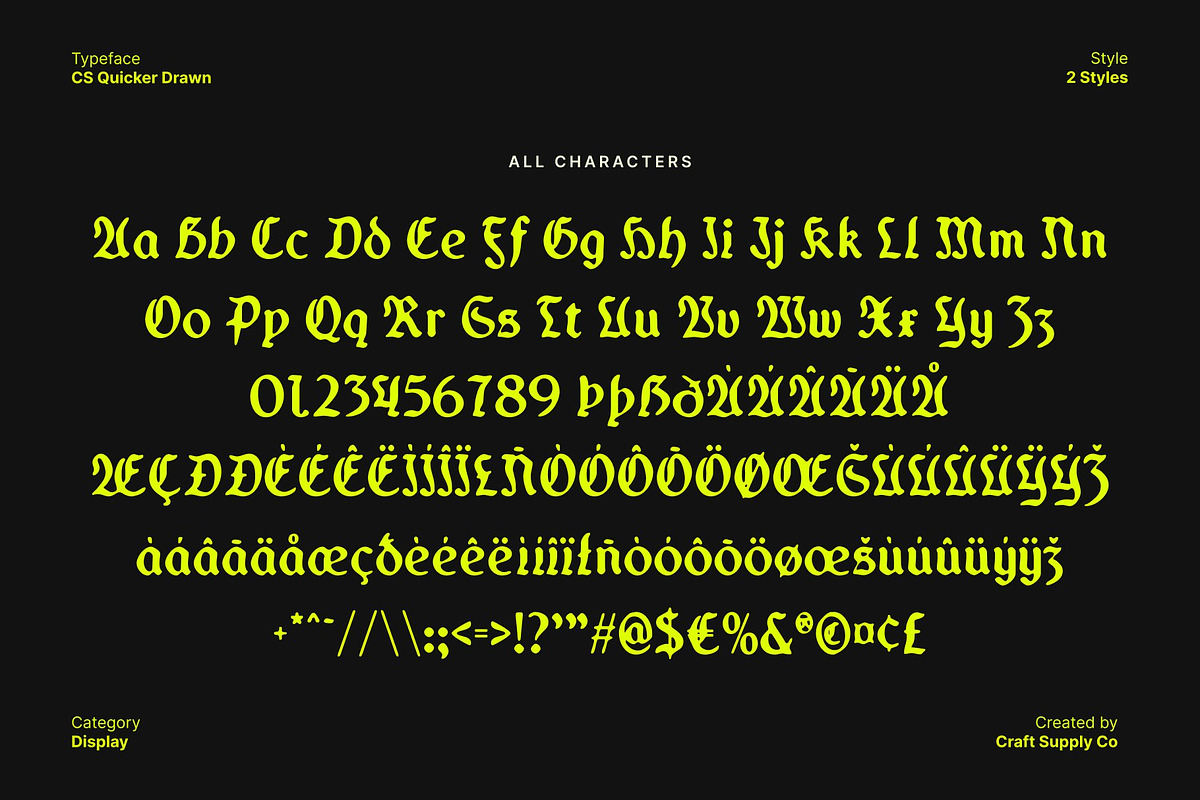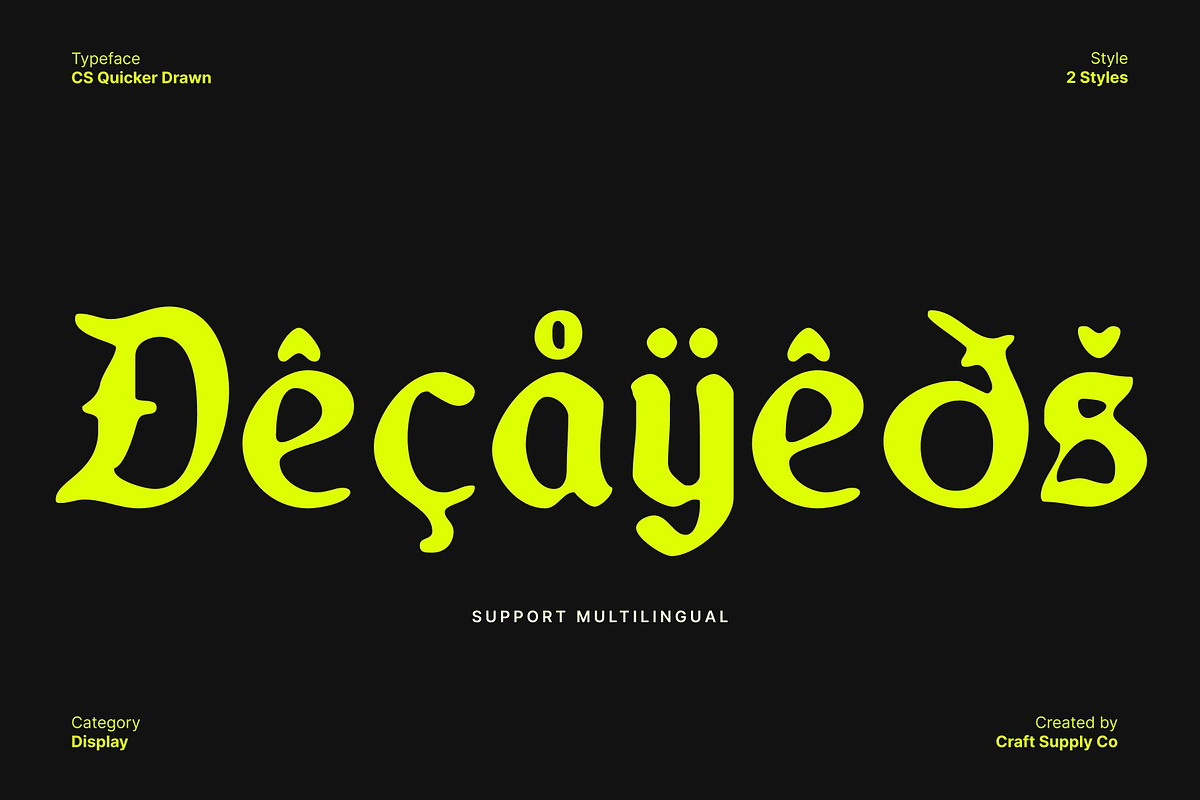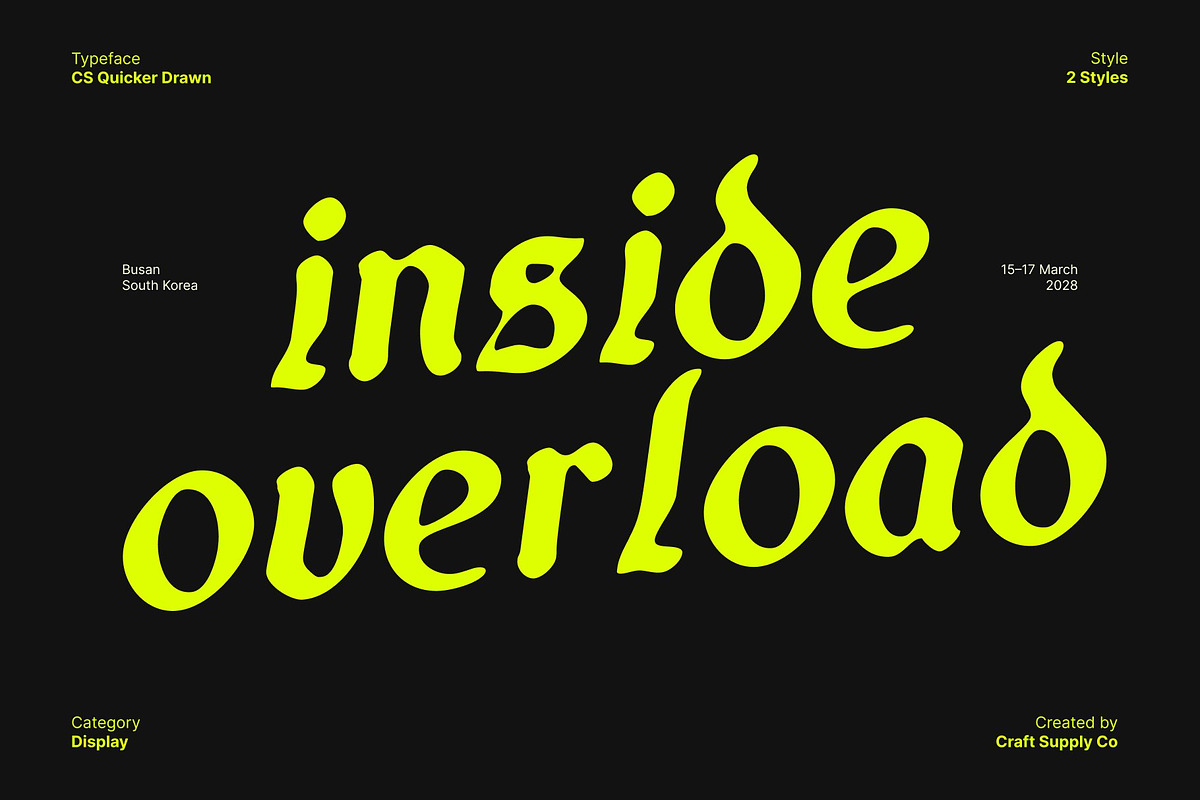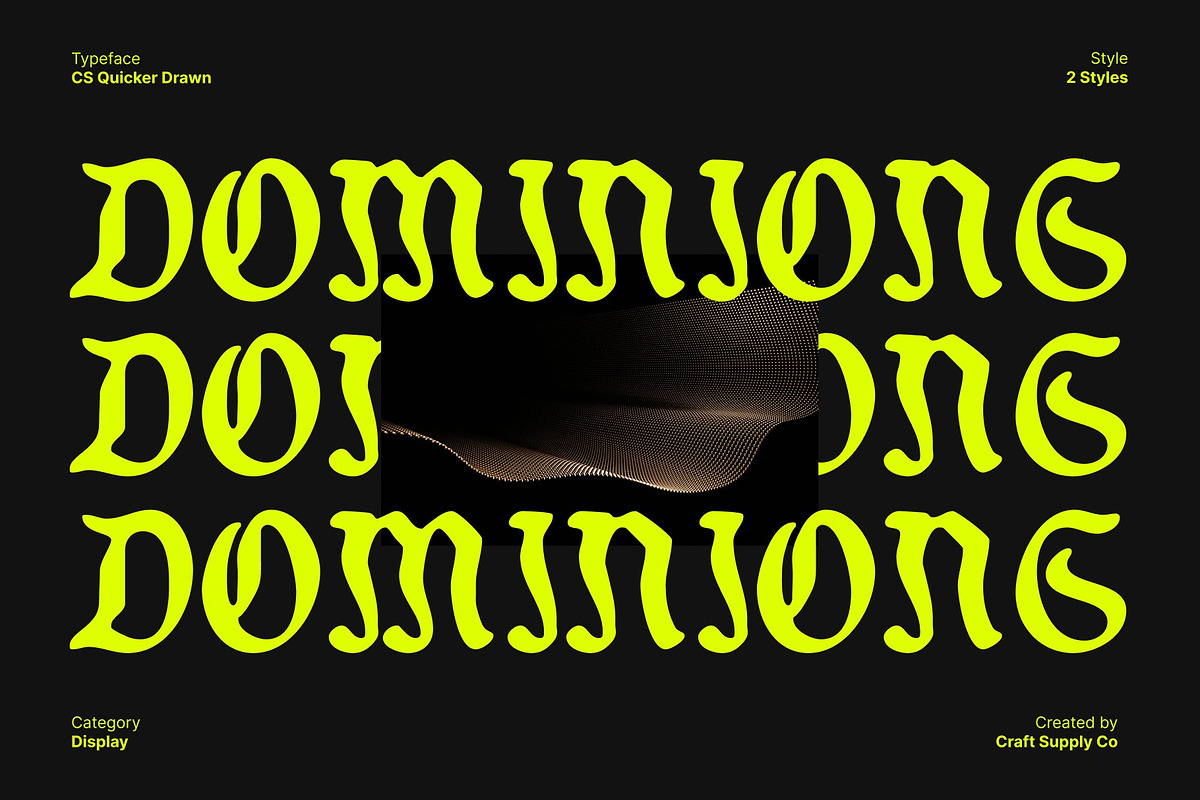
CS Quicker Drawn
CS Quicker Drawn – Gothic Display Font with Handcrafted Intensity
Sharp Gothic Forms with Bold Visual Power This is a Gothic display font defined by sharp, bold letterforms that deliver a strong and commanding presence. Its angular construction and solid weight draw inspiration from classic Gothic typography, creating a powerful visual identity rooted in tradition and strength.
Hand-Drawn Texture for Artistic Depth The hand-drawn texture adds an expressive, artistic layer that distinguishes this font from conventional Gothic fonts. Subtle imperfections and organic strokes introduce a handcrafted quality, giving the lettering a more human and authentic feel. This texture softens the rigid structure of the forms while enhancing their visual richness, resulting in a font that feels both intense and creatively refined.
Mysterious Tone with Heritage Influence This font carries a mysterious atmosphere influenced by historical lettering and traditional Gothic aesthetics. Its sharp details and textured finish evoke a sense of heritage, craftsmanship, and timeless storytelling. This combination of strength and artistry makes the font especially effective for designs that aim to convey drama, depth, and emotional resonance.
Perfect for Dramatic Branding and Display Projects Designed for high-impact applications, excels in branding, dramatic posters, book titles, album covers, and editorial headlines. Its bold Gothic structure and handmade texture create a memorable typographic voice that captures attention instantly. Whether used for logos or expressive display text, delivers a compelling balance of strength, heritage, and handcrafted artistry.